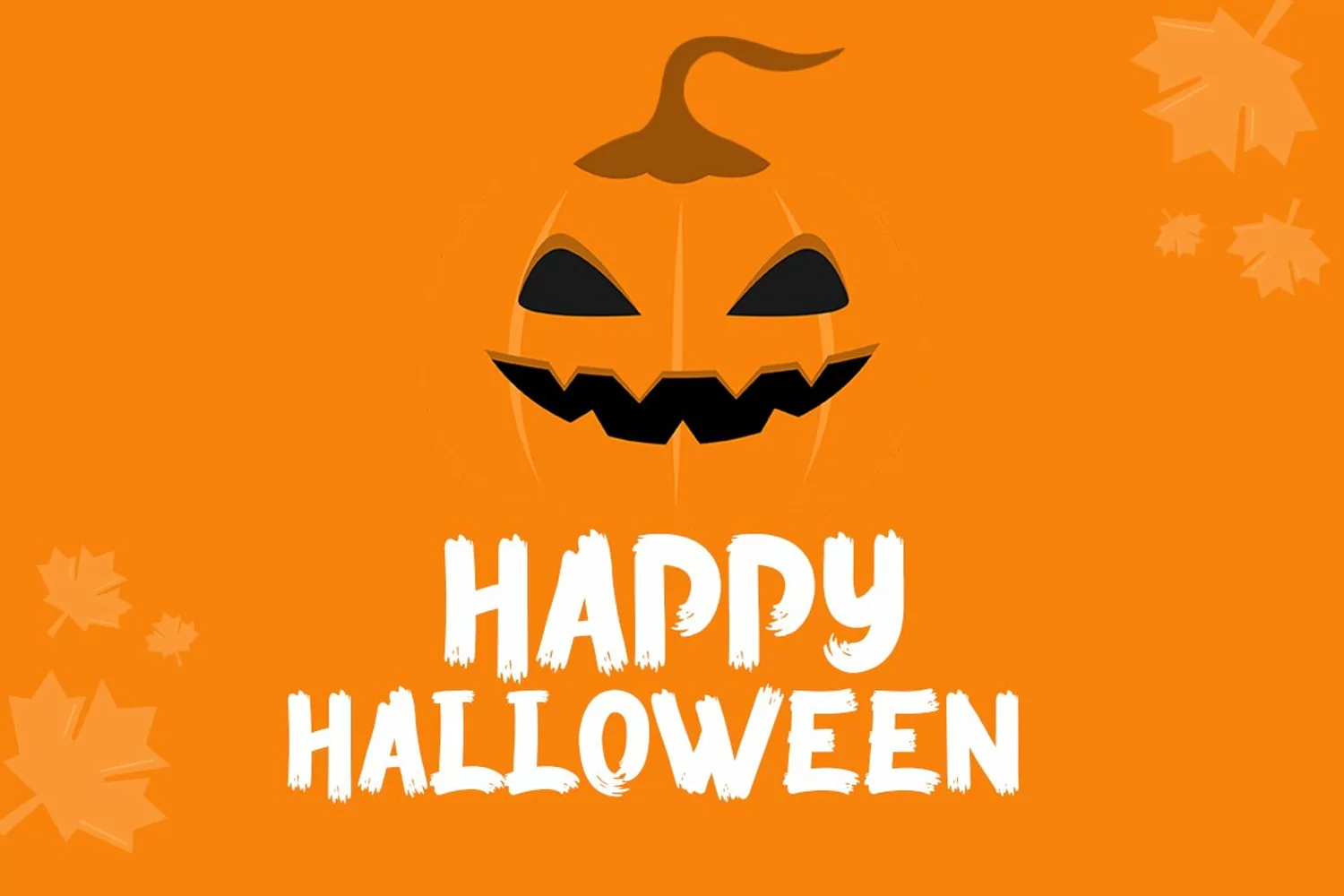
Gloomy Day display font is a fun display typeface font that perfect for creating halloween, thriller and horror project. Gloomy day display font with 2 different style, clean & rough. Gloomy Day it's perfect for namecard, poster, logo, magazine, cover, banner, tshirt and headers, or even large-scale artwork.